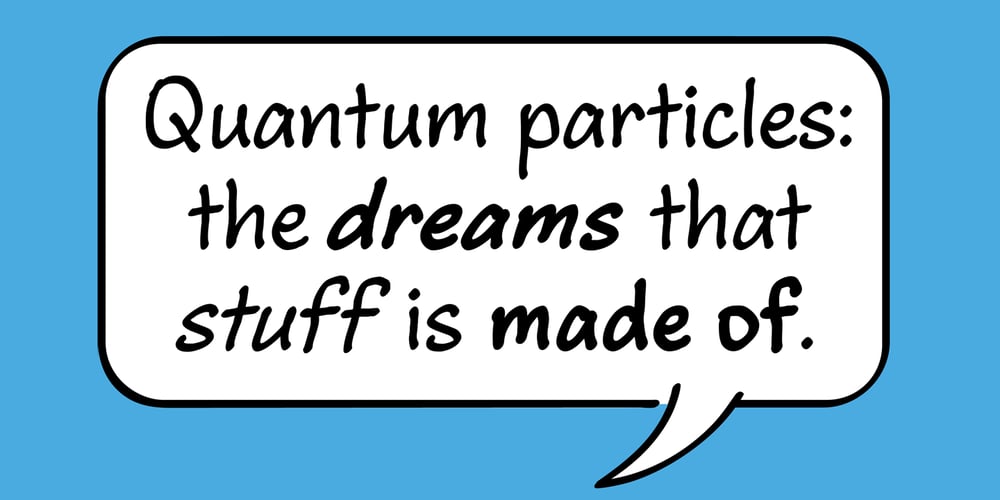
Tragicomic
Tragicomic font
Tragicomic Font Family was designed by Terry Lee and published by Veil of Perception. Tragicomic contains 5 styles and family package options. Tragicomic is a handwritten font which was originally conceived as a style which could be used in word balloons in comics and graphic novels. Swash characters, alternative letter forms, and a dingbat font were added to make it usable for brochures, personal notes, invitations, holiday greetings and other more general applications requiring a style with a personal handwritten touch.